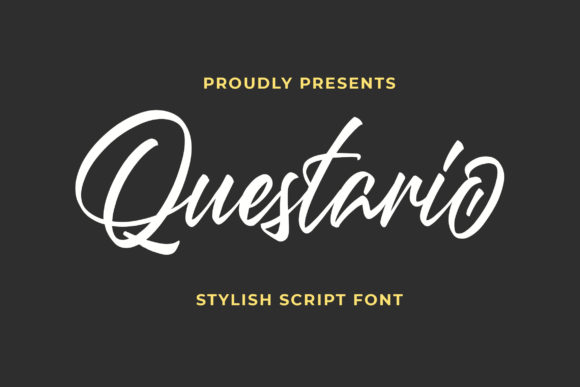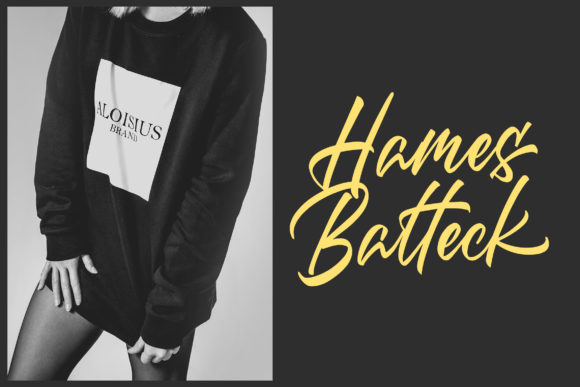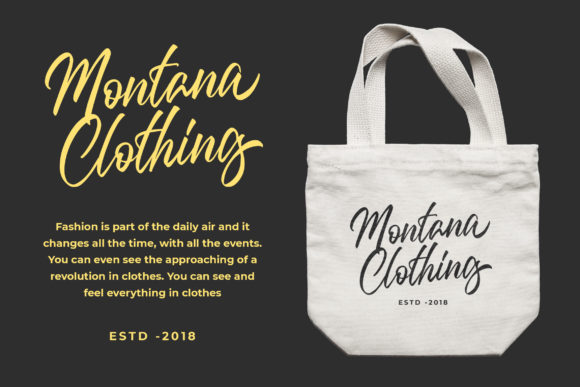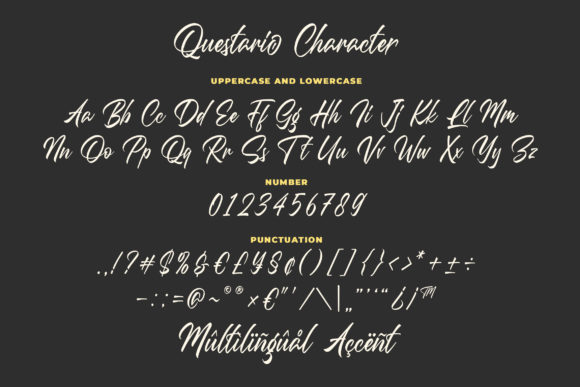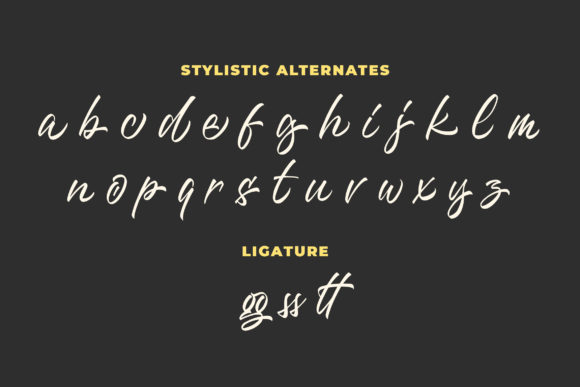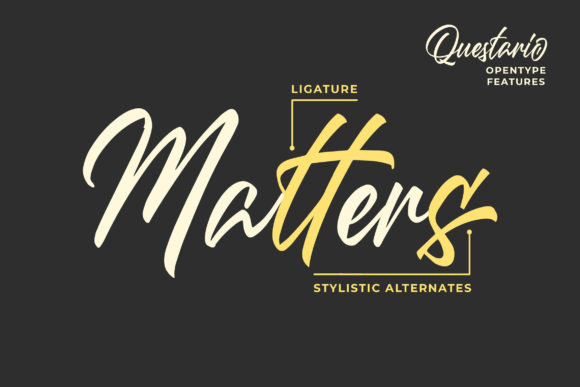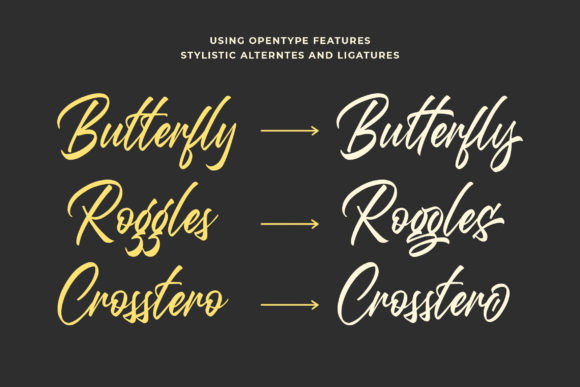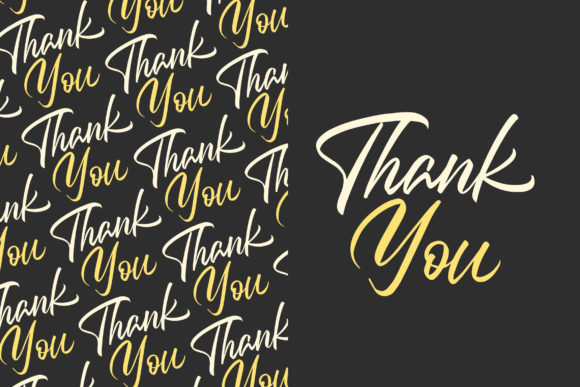
Questario Font
About Questario Font
Questario is a sweet and stylish script that’s great for a multitude of design projects. Use it to add an authentic charm to any design project!